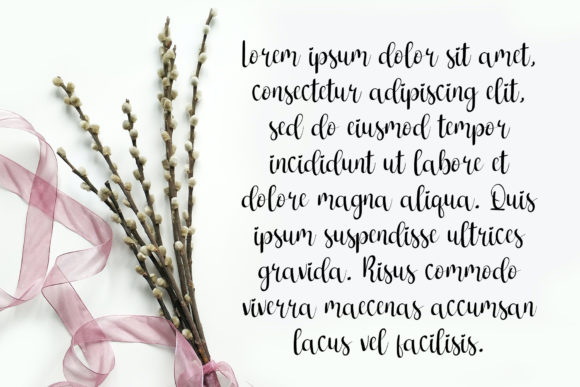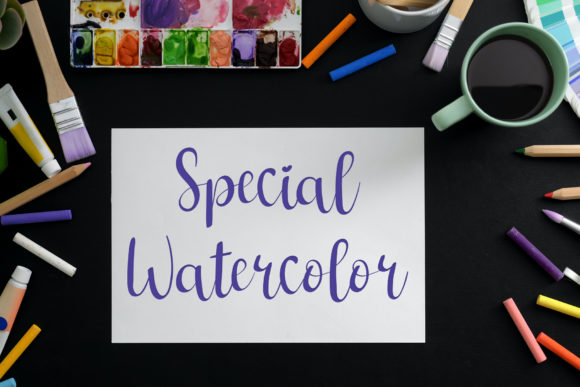
Halloween Reunion Font
db-ku.com - Script & Handwritten -- Halloween Reunion is a beautiful handwritten font. Perfect for use on wedding invitations, greeting cards, billboards, logos, business cards, and any other design that requires a handwritten touch.